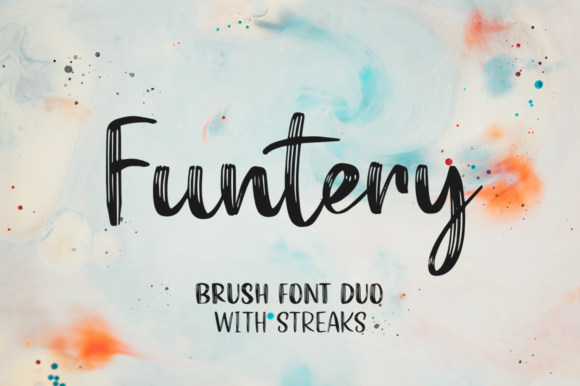
Introducing Funtery Duo Font: A Typographic Masterpiece Waiting to Ignite Your Designs
Step into the realm of captivating typography with Funtery Duo Font, a script font brimming with boldness and charm. This exquisite creation by Pasha Larin is an artistic masterpiece that transforms your design visions into stunning realities. Prepare to fall head over heels in love with its remarkable elegance and versatility.
With Funtery Duo Font, you hold the key to unlocking a world of creative possibilities. Its bold lines and dreamy curves dance across the page, beckoning you to explore the depths of your imagination. Whether you're crafting logos, branding elements, or simply adding a touch of whimsy to your personal projects, Funtery Duo Font is your perfect companion.
Embrace the allure of Funtery Duo Font and watch your designs flourish with newfound brilliance. Its bold strokes and captivating charm will leave an indelible mark on your audience, capturing their attention and stirring their emotions. Bask in the glow of admiration as your designs take center stage, imbued with a touch of undeniable magic.
Unleash the boundless potential of Funtery Duo Font and embark on a typographic adventure like no other. Let your creativity soar, and witness the transformation of ordinary designs into extraordinary masterpieces. As you weave your words into visual symphonies, Funtery Duo Font will amplify their impact, resonating with your audience on a profound level.